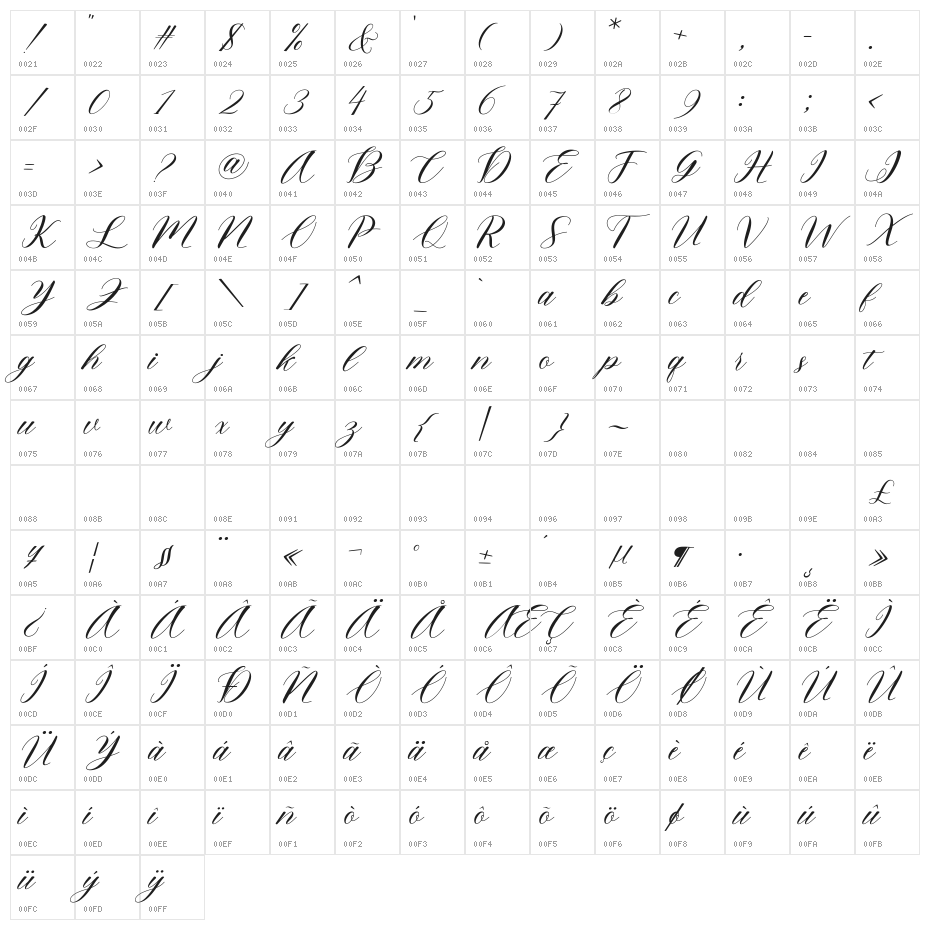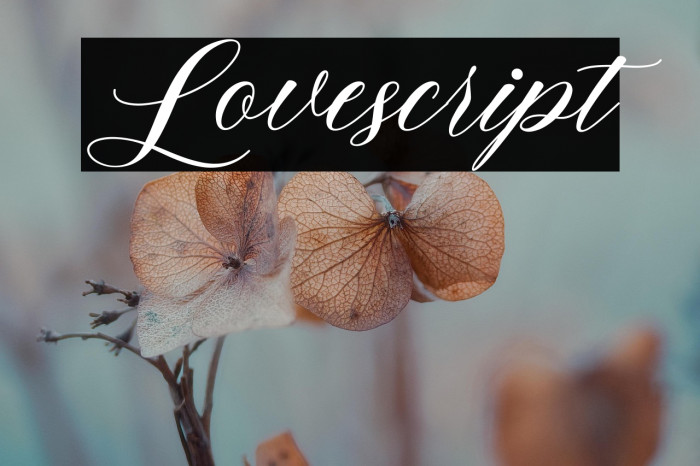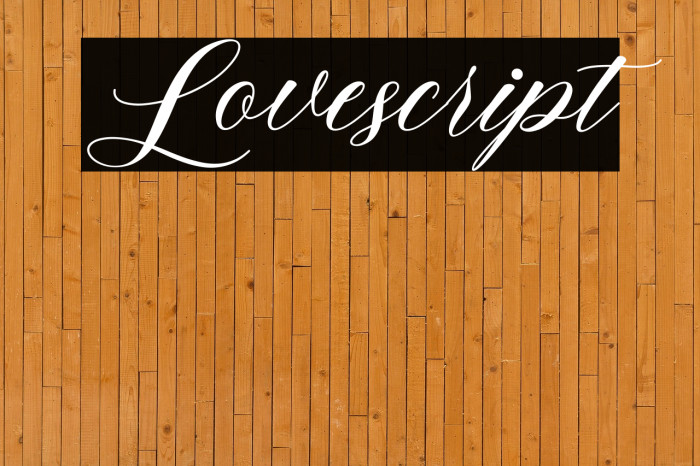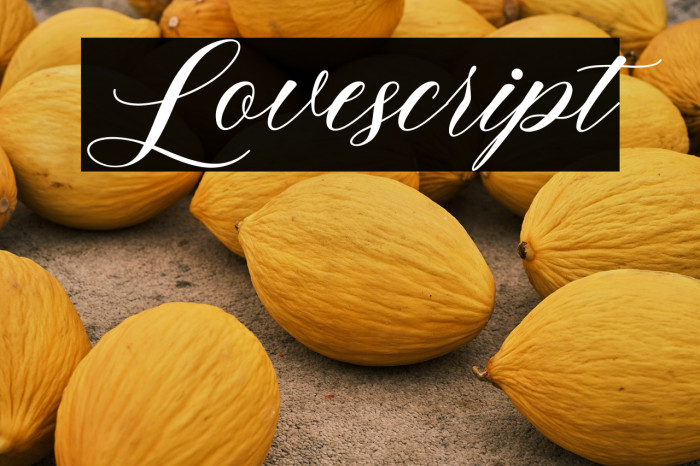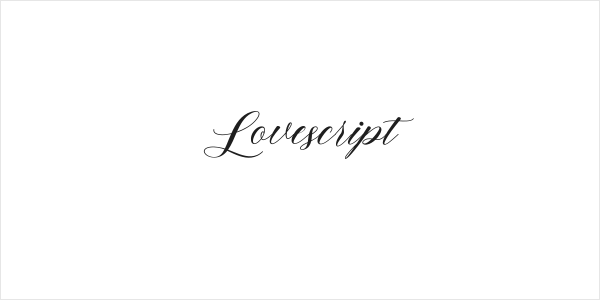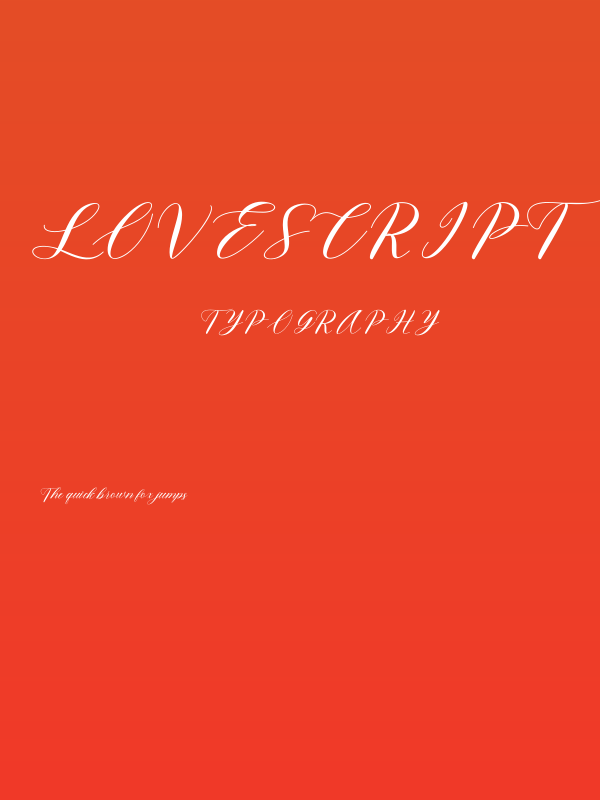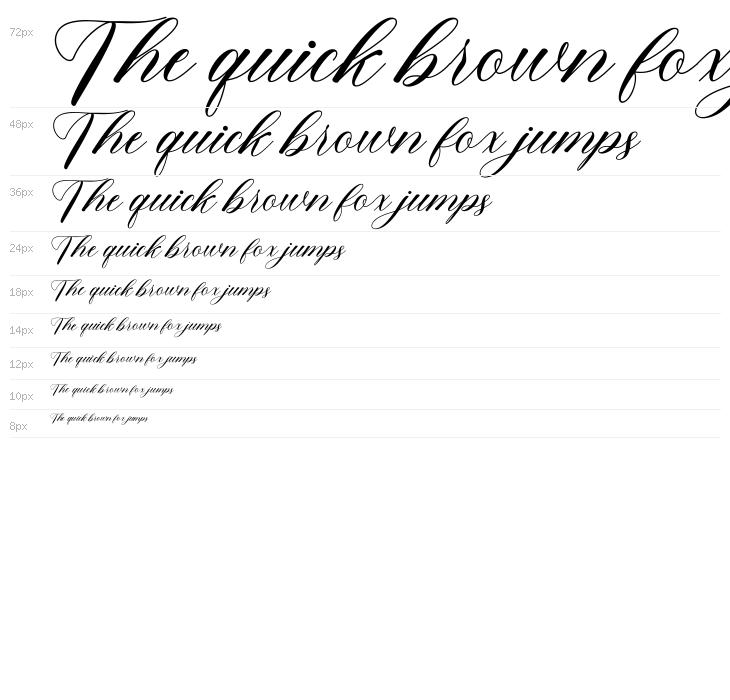
Lovescript Font
Lovescript Description
This elegant script font features flowing, interconnected characters that exude a sense of sophistication and grace. The uppercase letters are characterized by their sweeping curves and delicate loops, while the lowercase letters maintain a consistent fluidity that enhances readability. The numerals and special characters are crafted with the same attention to detail, ensuring a cohesive appearance across all text. This font's high contrast between thick and thin strokes adds to its refined aesthetic, making it ideal for formal invitations, branding, and decorative purposes.
| Use Case | Invitations, Branding, Decorative |
| Proposed Projects | Ideal for wedding invitations, luxury branding, greeting cards, and decorative signage. |